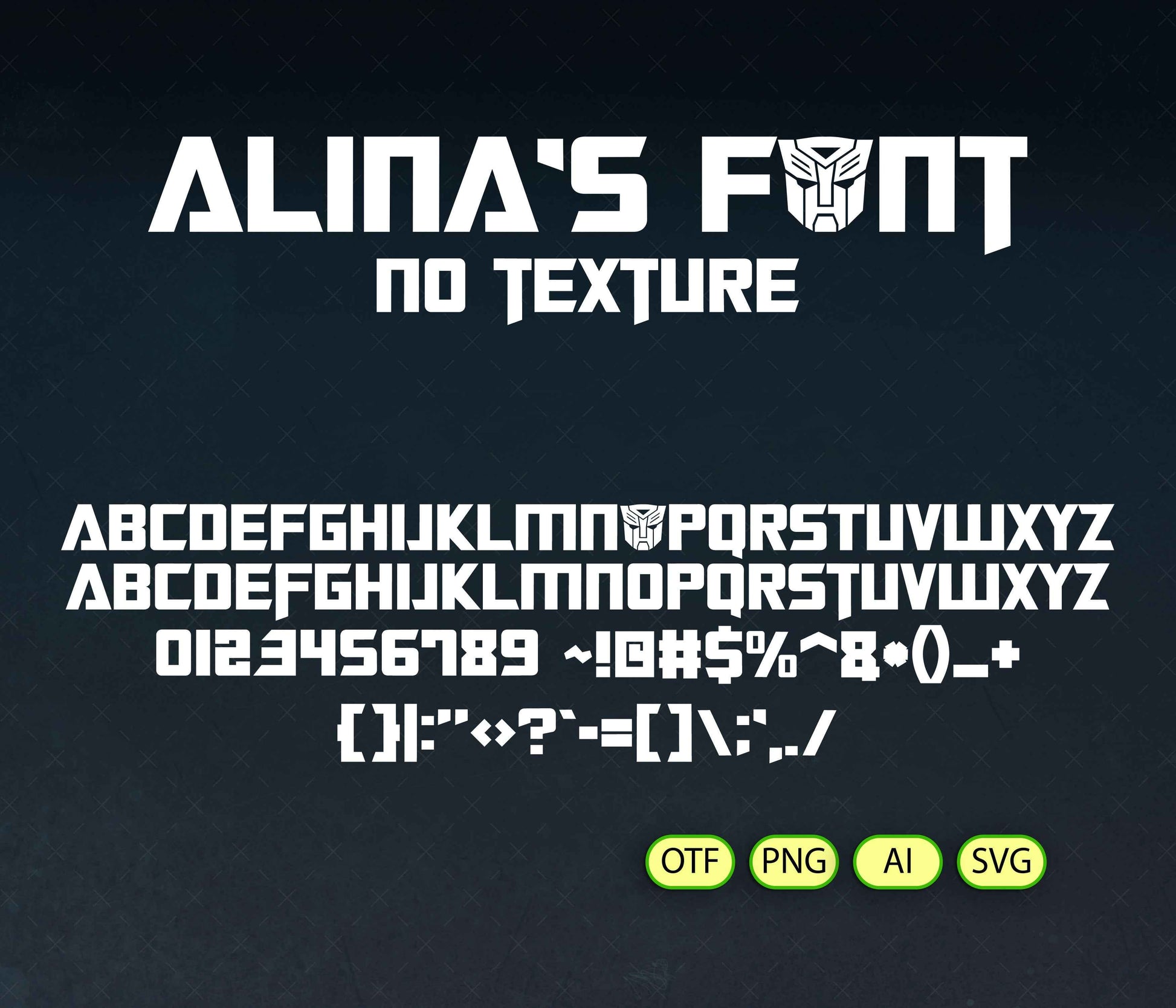
Cyber Mech Font
Embrace the Robotic Edge with the Cyber Mech Font
Dive into the high-octane world of robots and technology with our Cyber Mech font. Designed to capture the mechanical and bold aesthetics of an iconic robotic universe, this font is perfect for fans and creators looking to infuse their projects with the dynamic energy of mechanical warriors. Whether you're creating fan content, promotional materials, or custom merchandise, our font ensures your designs stand out with the strength and impact of the robotic realm.
Our Cyber Mech font features stark, angular lines and block-like structures that echo the robotic forms of advanced machines. It includes a complete set of characters—uppercase, lowercase, numbers, and symbols—making it ideal for a wide range of applications:
- Event Posters: Capture attention for movie screenings or fan events.
- Digital Content: Enhance online media with titles and headers that pop.
- Merchandise: Create striking designs for t-shirts, stickers, and more.
- Personal Projects: Customize gadgets and room decor for a touch of fandom.
With our Cyber Mech font, your creations will not only capture the essence of advanced robotic tales but also bring the bold, adventurous spirit of mechanical heroes to life in every design. Ready to transform your projects with a touch of high-tech flair? The Cyber Mech font is here to power up your creativity.